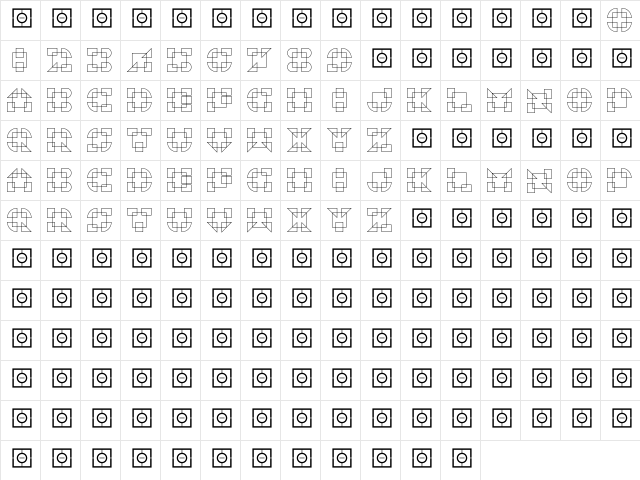
AlphaGeometrique Outline
Design Context for AlphaGeometrique Typeface
AlphaGeometrique is built around its visual character rather than neutral utility — its distinctive forms are designed to make an impression at display sizes.
Font Pairing: Pair with a clean neutral sans-serif for body copy to let AlphaGeometrique's character lead without overwhelming the composition.
Pro Tip: Use AlphaGeometrique exclusively at display sizes — it was designed to be seen, not read at length. Let a neutral companion handle body copy.